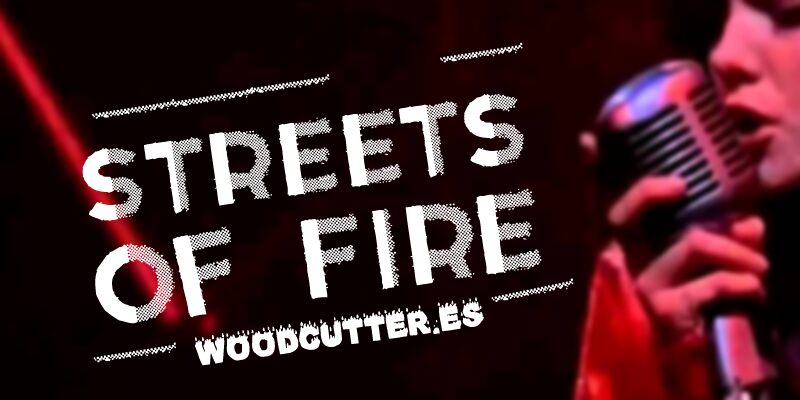
Streets of Fire by Woodcutter Manero of Woodcutter.es is a free decorative display font with forceful, angular capitals. Solid sections collide with dense halftone patterns, splitting each letter into contrasting surfaces. The rough transitions give the lettering a cut-and-pasted print quality.
Urban nightlife and underground music are natural subjects for this restless design. It suits concert posters, album covers, streetwear merchandise, and event graphics with a gritty photocopied edge. The recurring halftone motif can echo screen-printed photographs, distressed patterns, or comic-style shading.
Streets of Fire